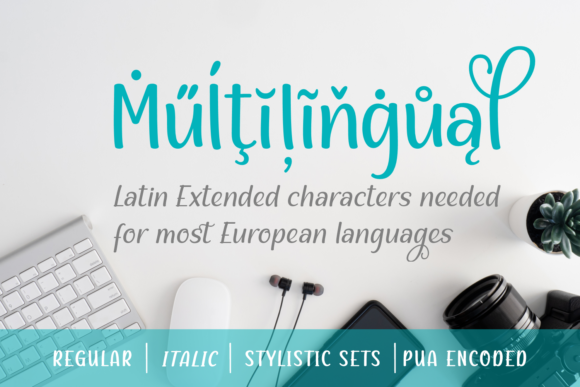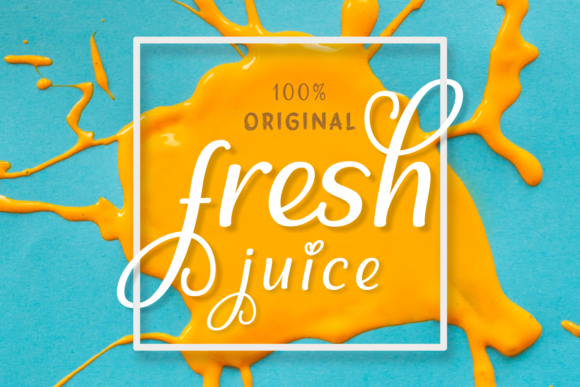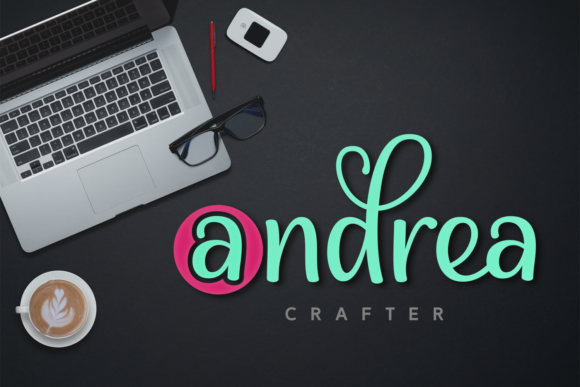
Introducing Establessed Font: The Sweet and Neat Lettered Handwritten Font
Are you looking for a font that can add a touch of elegance and joy to your designs? Look no further than Establessed Font, a beautiful and delicate handwritten font that’s perfect for creating stunning wedding invitations, stationary art, social media posts, and more!
What is Establessed Font?
Establessed Font is a sweet and neat lettered handwritten font that’s designed to inspire your creativity. Its delicate and joyful feel makes it perfect for a wide range of design projects, from romantic wedding invitations to eye-catching social media posts.
Key Features of Establessed Font
- Delicate and Joyful Feel: Establessed Font has a unique and charming feel that’s sure to capture the hearts of your audience.
- Handwritten with Love: This font is carefully crafted with love and attention to detail, giving it a personal and human touch.
- Neat and Easy to Read: Despite its delicate feel, Establessed Font is surprisingly easy to read, making it perfect for body text and headings.
- Versatile and Flexible: Use Establessed Font for a wide range of design projects, from digital to print, and from formal to informal.
Use Cases for Establessed Font
Establessed Font is perfect for designers and crafters who want to add a touch of elegance and joy to their designs. Here are some use cases to get you started:
- Wedding Invitations: Create stunning wedding invitations that set the tone for a beautiful and memorable day.
- Stationary Art: Design gorgeous stationary art, including greeting cards, thank you cards, and more.
- Social Media Posts: Add a touch of elegance and sophistication to your social media posts and stories.
- Branding and Packaging: Use Establessed Font to create beautiful branding and packaging designs that stand out from the crowd.
Why Choose Establessed Font?
With so many fonts to choose from, why should you choose Establessed Font? Here are just a few reasons:
- Unique and Exclusive: Establessed Font is a unique and exclusive font that’s sure to make your designs stand out.
- High-Quality Design: This font is designed with love and attention to detail, ensuring a high-quality design that will impress your audience.
Establessed Font is a beautiful and delicate handwritten font that’s perfect for designers and crafters who want to add a touch of elegance and joy to their designs. With its unique and charming feel, versatility, and ease of use, Establessed Font is sure to become a favorite in your design arsenal. So why wait? Get Establessed Font today and start creating stunning designs that inspire and delight!